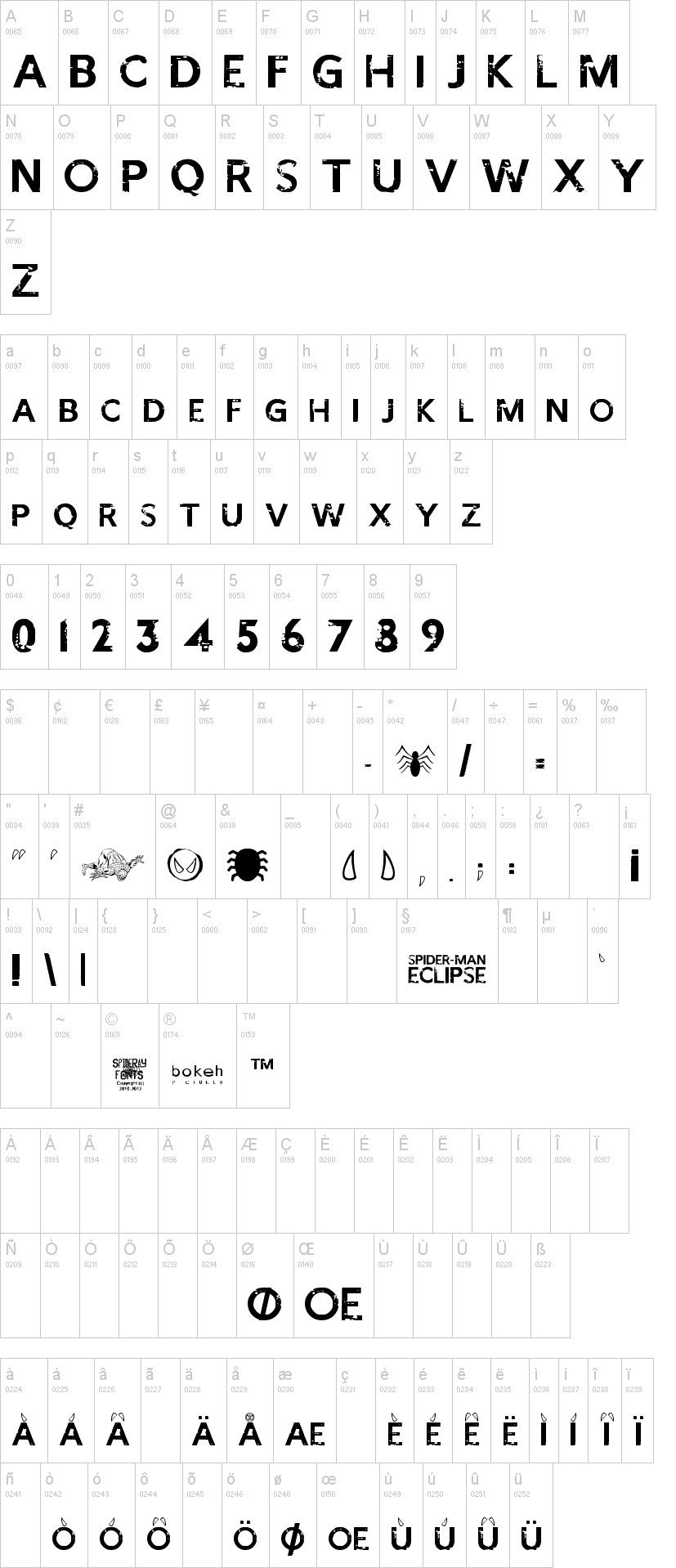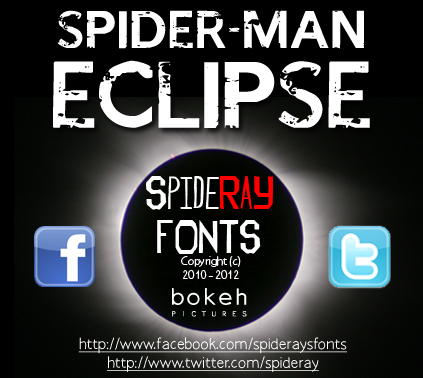
Note of the authorThis font it a truly fan-based adventure re-created from my original fan-font I AM SHERLOCKED, the repackaged version has been created specifically to help promote the latest fan-based short film SPIDER-MAN : ECLIPSE from Al White of Bokeh Pictures, please support this venture by spreading the word and downloading this fan-font used on the movie.